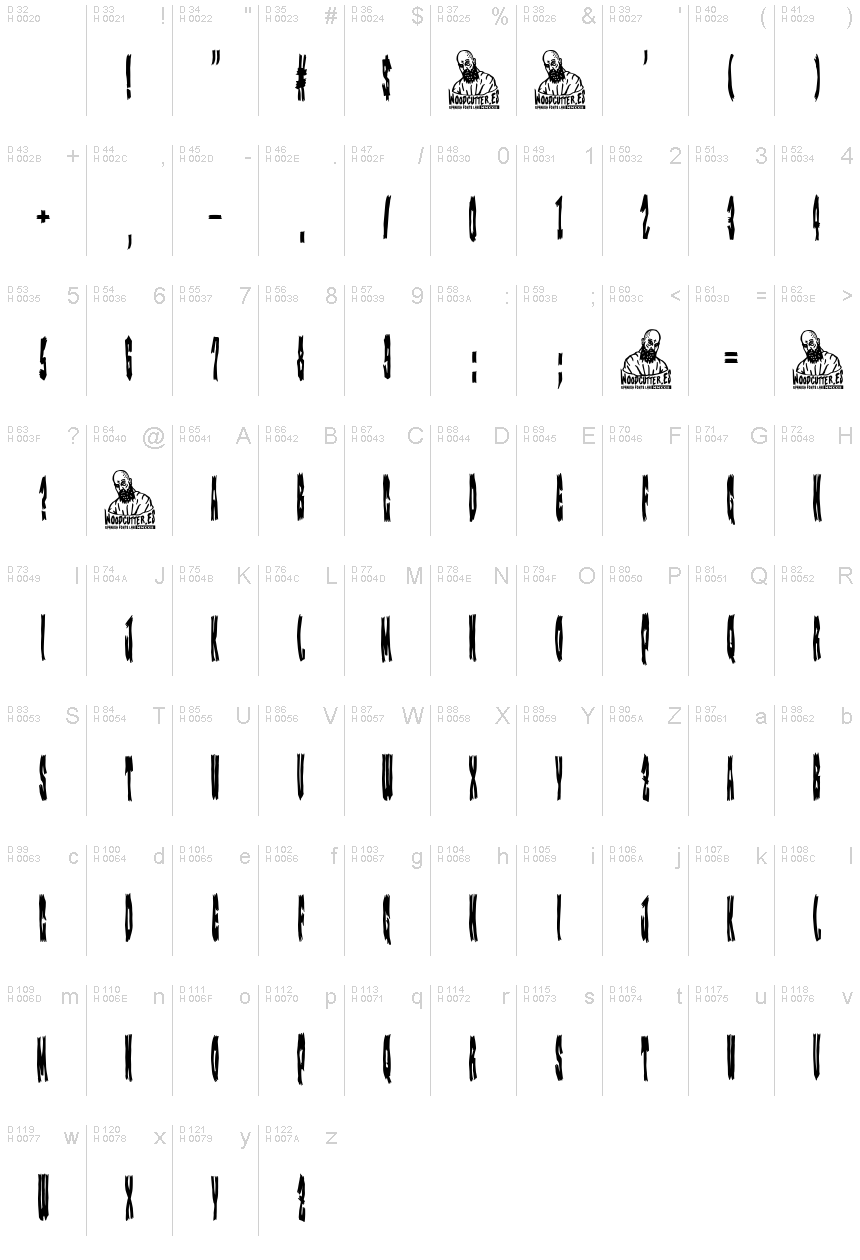
Monster of Trailer Park
"Monster of Trailer Park" is a display font designed by Woodcutter, exuding a captivating aura of grittiness and menace. Its condensed, angular letterforms evoke a sense of unease, perfectly suited for horror-themed designs, heavy metal album covers, or any project seeking to convey a gritty, unapologetic aesthetic.
The font's distinct, irregular edges and spiky serifs lend it a raw, uncompromising personality, making it an ideal choice for creating eye-catching headlines, logos, and signage. Its bold, imposing presence commands attention and sets the tone for narratives exploring the darker underbelly of urban or rural landscapes.
Versatile and striking, "Monster of Trailer Park" offers designers a powerful tool to craft visceral, immersive experiences that resonate with audiences seeking to engage with the more unforgiving aspects of our world.